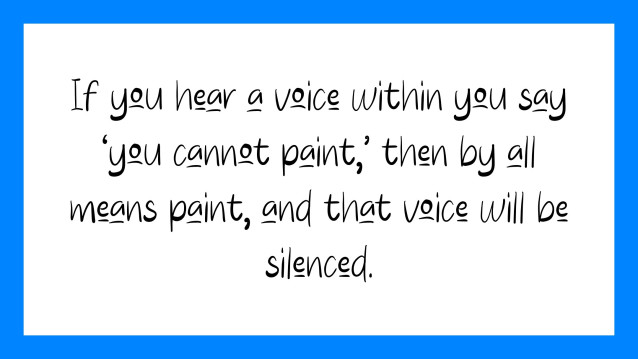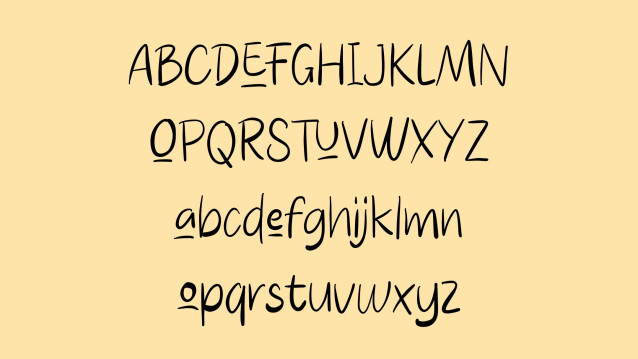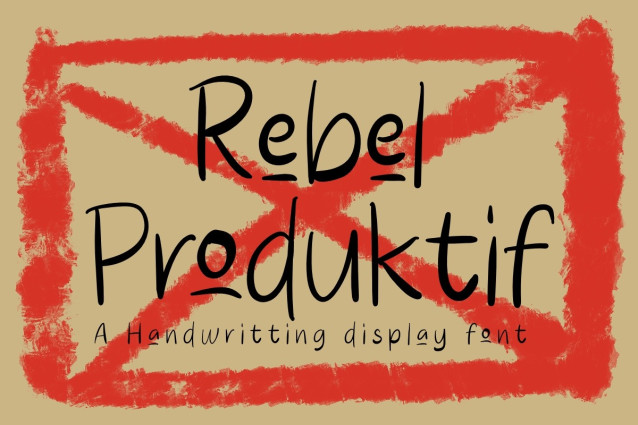
Rebel Produktif Font
Rebel Produktif Font is a simple and friendly handwritten font. Its natural and unique style makes it incredibly fitting to a large pool of designs. The only limit is your imagination!